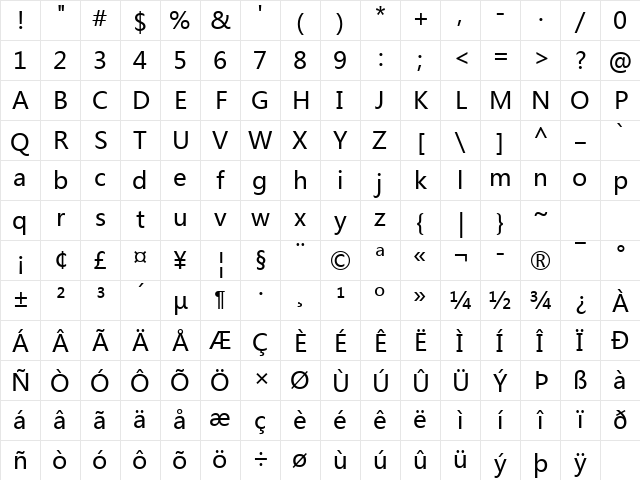
Microsoft YaHei Regular
Foundry: Microsoft Corporation
Designer: Founder
Complete Microsoft YaHei Regular glyph index. Displaying only characters natively supported by Microsoft YaHei Regular font.
Design Context for Microsoft YaHei
Microsoft YaHei is a composed and adaptable typeface that performs quietly and consistently across a wide range of design contexts.